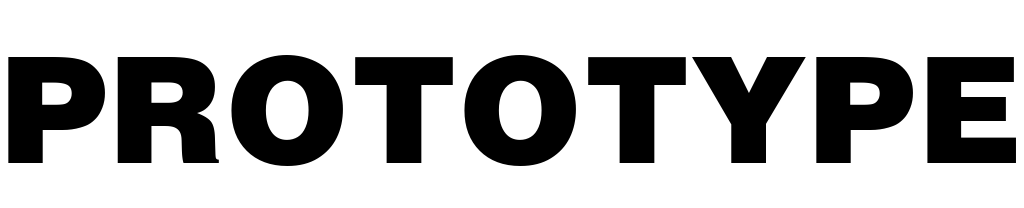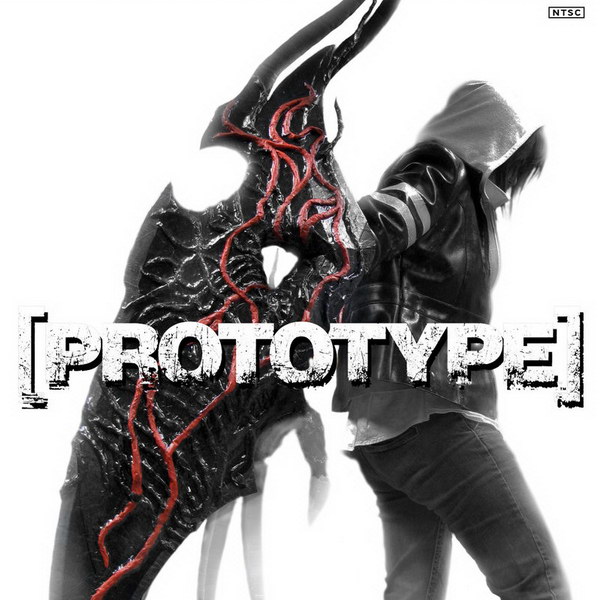
Prototype Font
Action & AdventurePrototype is a 2009 action-adventure video game developed by Radical Entertainment and published by Activision. The game is set in New York City where a viral outbreak has turned many of its citizens into monstrous creatures, the players control Alex Mercer, an amnesiac shapeshifter who attempts to stop the spread of the infection.
The Prototype logo is based on Helvetica Black, with some grunge effects. Helvetica Black is available as a commercial font and more details about it can be found here.